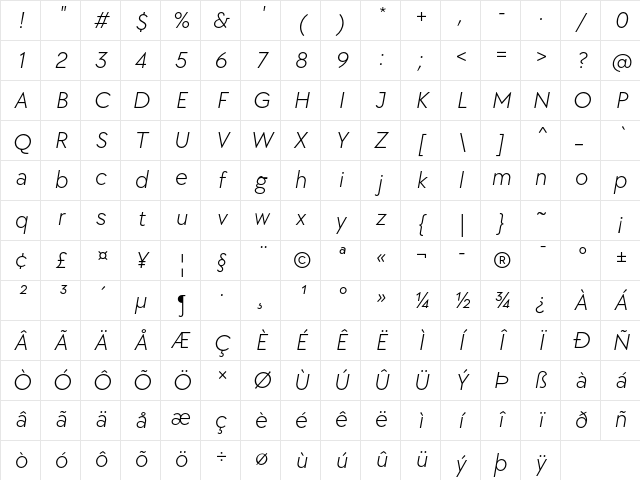
TT Chocolates Trl Light Italic
Foundry: Typetype
Designer: TypeType
Design Context for TT Chocolates Trl
TT Chocolates Trl is a composed and adaptable typeface that performs quietly and consistently across a wide range of design contexts. The slanted form adds forward momentum and visual energy. Its slender proportions lend an understated elegance to any composition.
Pro Tip: Use TT Chocolates Trl for emphasis, pull quotes, and subheadings where its slanted energy can add rhythm to the layout.